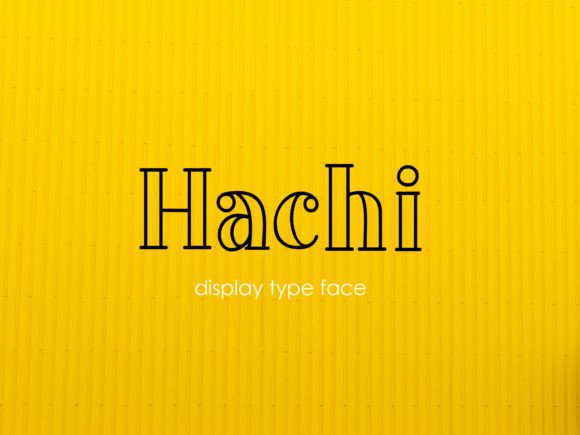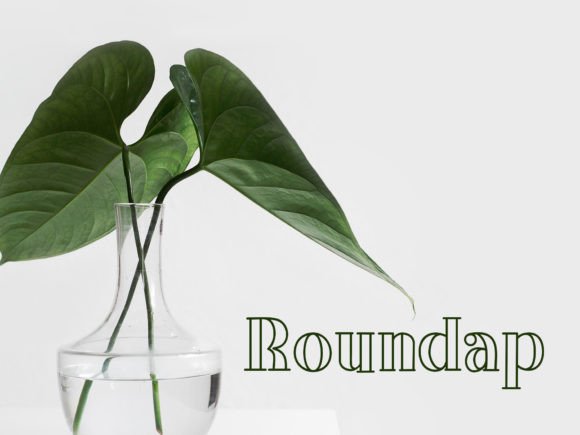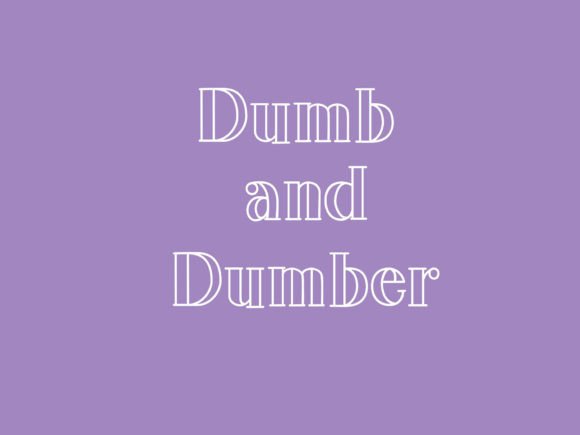
Discover the Funky Charm of Hachi Font
I’ll never forget the time I was working on a retro-themed craft project, and I just couldn’t find the right font to bring it to life. My client wanted something modern yet nostalgic, and I was on the verge of giving up. That’s when I stumbled upon Hachi Font, and it was love at first sight! ✨ In this article, I’ll share my experience with Hachi, its unique features, and how you can make the most of it in your designs.
An Honest Review of Hachi Font
What I Love About Hachi Font
- ✨ Modern simplicity: Hachi’s clean lines and minimalist approach make it perfect for a wide range of designs, from modern branding to retro-themed projects.
- ✅ Funky vibe: Hachi’s unique character gives it a playful edge that’s hard to find in other fonts.
- 💡 Versatility: Whether you’re working on a logo, a poster, or a social media graphic, Hachi adapts seamlessly to different design contexts.
While Hachi is an amazing font, it’s not without its quirks. ⚠️ For example, some users might find that the font’s uniqueness can make it tricky to read in very small sizes or in certain contexts. Additionally, Hachi’s stylistic alternates might not work as seamlessly with all design software.
Another thing to consider is that Hachi’s funky vibe might not be suitable for very formal or traditional designs. 🤔 However, for most creative projects, Hachi’s personality shines through and adds a fresh touch.
The Story Behind Hachi Font
Hachi was designed with the goal of blending modern simplicity with a funky, retro vibe. Its creator wanted to craft a font that would be both stylish and versatile, suitable for a wide range of design projects. Inspired by the urban landscapes and eclectic fashion trends of modern cities, Hachi embodies a fresh, contemporary spirit.
Q: What makes Hachi Font unique?
A: Hachi’s unique blend of modern simplicity and a funky vibe sets it apart from other fonts.
Q: Does Hachi support OpenType features?
A: Yes, Hachi supports OpenType features, including stylistic alternates and glyphs. This allows for a high degree of customization in compatible design software.
Q: Is Hachi suitable for body text?
A: While Hachi is stunning for headlines and titles, it may not be the best choice for body text due to its unique style and potential readability issues at small sizes.